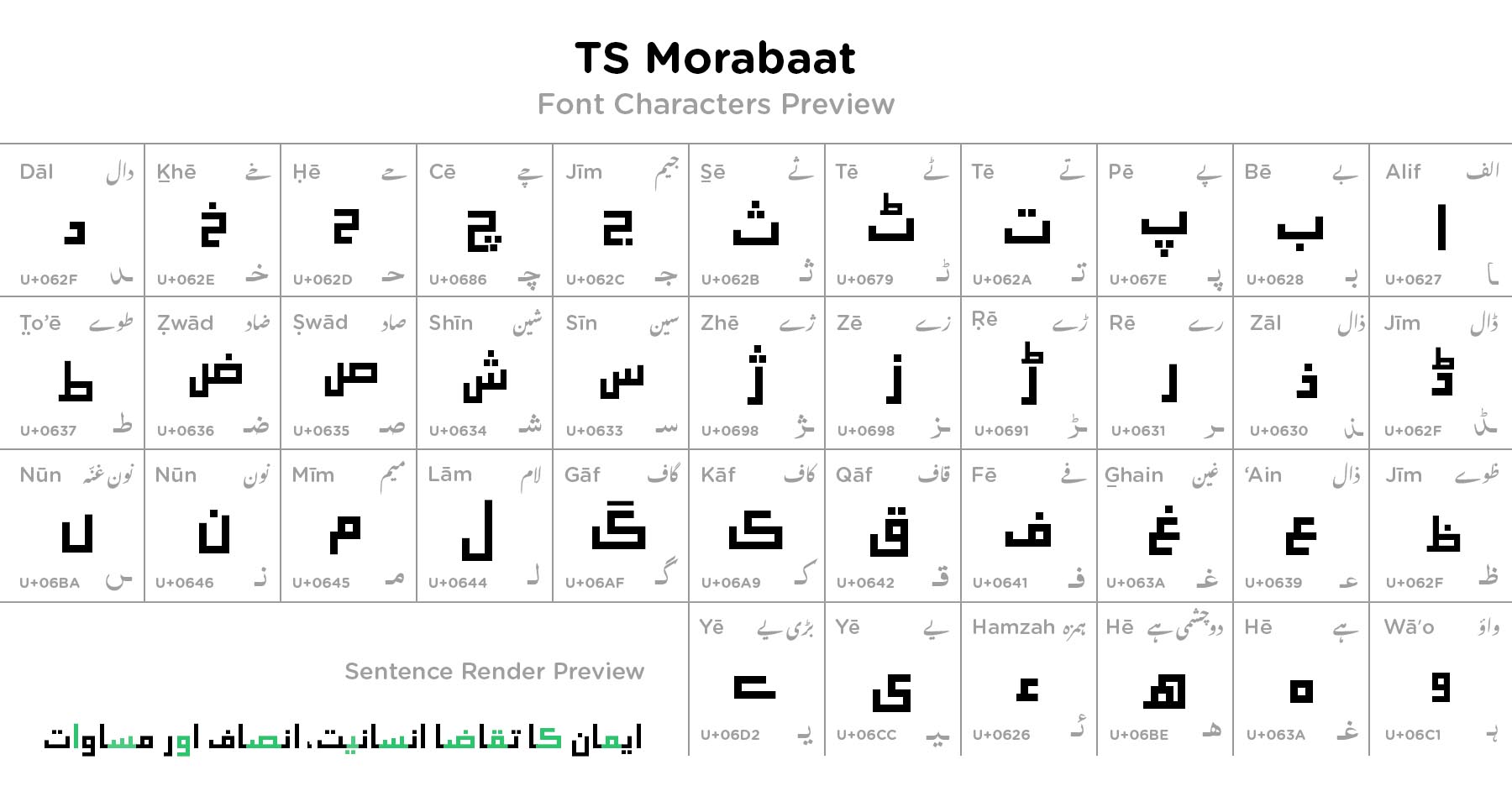
TS Morabaat is a font that skillfully combines modern elements with the classic beauty of the Nastaliq script to improve the readability of any text. Tarek Alsawwa (TS) developed and released Morabaat in 2020, which was inspired by Kufi Murabba. It is an open type font therefore it may not be compatible with several modern designing tools.
It is present in different styles including:
- TS Morabaat Light
- TS Morabaat Regular
- TS Morabaat Demibold
- TS Morabaat Bold
- TS Morabaat Black
Its ease of reading and writing is one of its defining characteristics. It is available in five weights in Arabic, Persian, Urdu, and English. The Morabaat typeface is available free of cost for both personal and business usage. The Morabaat typeface is a widely spaced geometric design composed of squares that overlap at every right corner. Because of its vast Unicode compatibility, it can be easily integrated into many systems. This font is used for designing and artistic purposes rather than writing. Therefore, it is often seen in catchy posters or to make attractive headers, especially on Arabic websites.